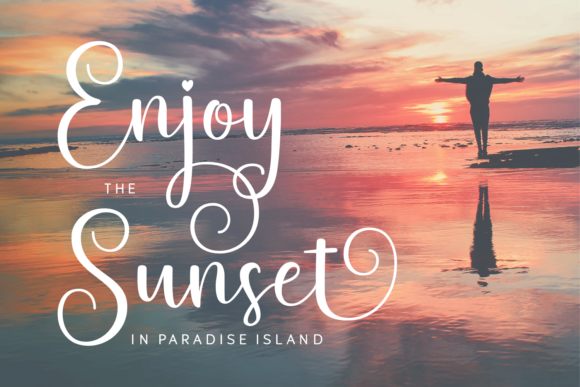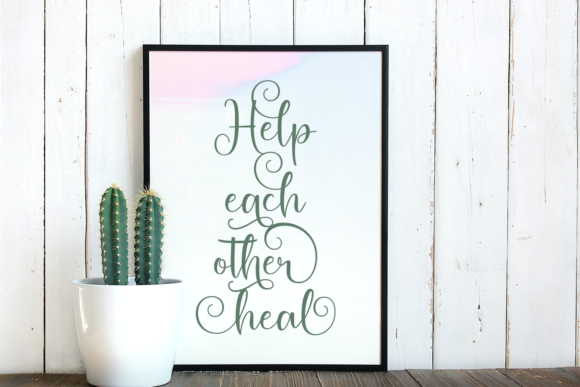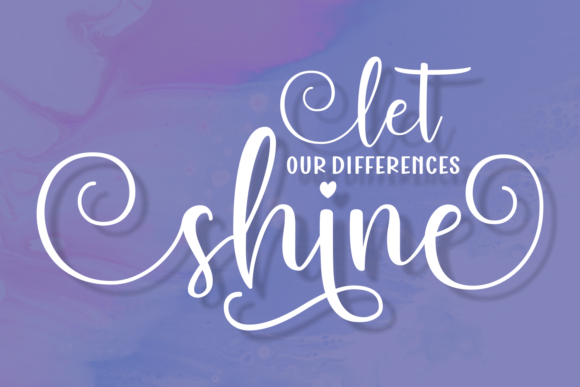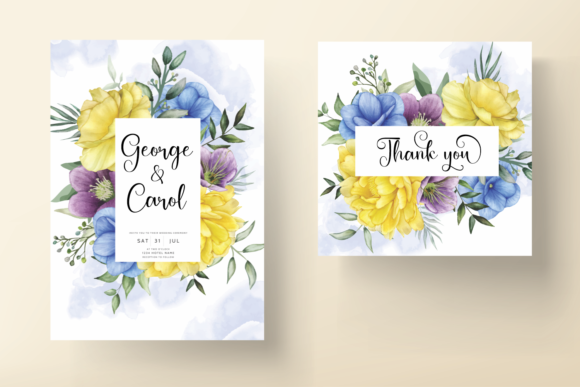
The Elegance of Amylia Font: A Designer’s Delight
I still remember the time I was working on a wedding invitation project, and my client asked for a font that exuded elegance and romance. I scoured the internet, tried out countless fonts, but nothing seemed to fit the bill. That was until I stumbled upon Amylia Font. ✨ It was love at first sight! This modern calligraphy font has a feminine and delicate touch that instantly elevated my design. In this article, I’ll share my experience with Amylia Font, its features, and how to make the most of it in your designs.
An Honest Review of Amylia Font
What I Love About Amylia Font
- ✨ Elegant and romantic feel, perfect for wedding-related designs
- ✅ Delicate and feminine touch, great for feminine branding
- ⚡️ Highly versatile, suitable for various design projects, from wall art to clothing websites
- 📚 Extensive character set, including OpenType features and glyphs
While Amylia Font is an excellent choice, there are a few things to keep in mind: 🤔
- ⚠️ Limited availability of bold or heavy weights, which might not be suitable for all designs
- ⚠️ Some users may find the font a bit too ornate or delicate for certain projects
The Backstory of Amylia Font
Amylia Font was designed with the intention of creating a modern calligraphy font that exudes elegance and romance. The designer aimed to craft a font that would be perfect for wedding-related designs, feminine branding, and other creative projects. 💌
Q: What type of projects is Amylia Font best suited for?
A: Amylia Font is ideal for wedding-related designs, feminine branding, wall art, quotes, book titles, jewelry stores, and clothing websites.
Q: Does Amylia Font come with OpenType features?
A: Yes, Amylia Font comes with OpenType features, including glyphs and stylistic alternates, which can be accessed in compatible design software.